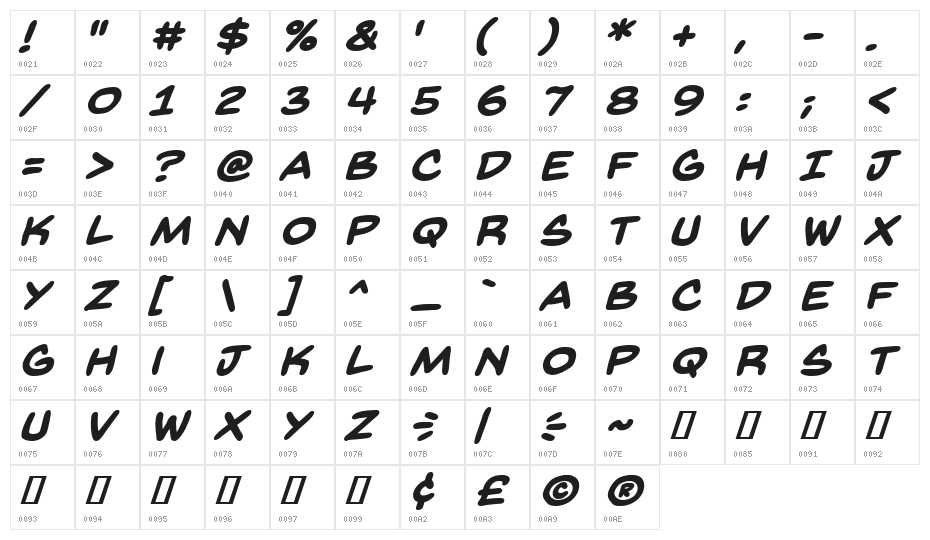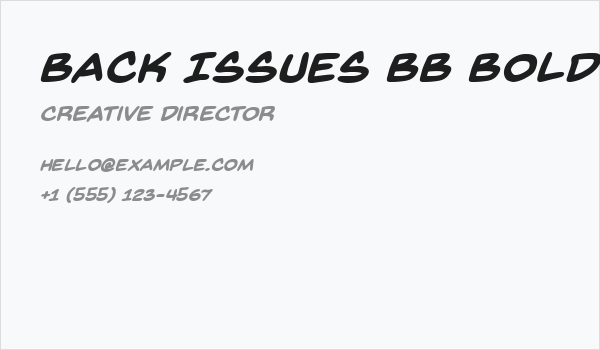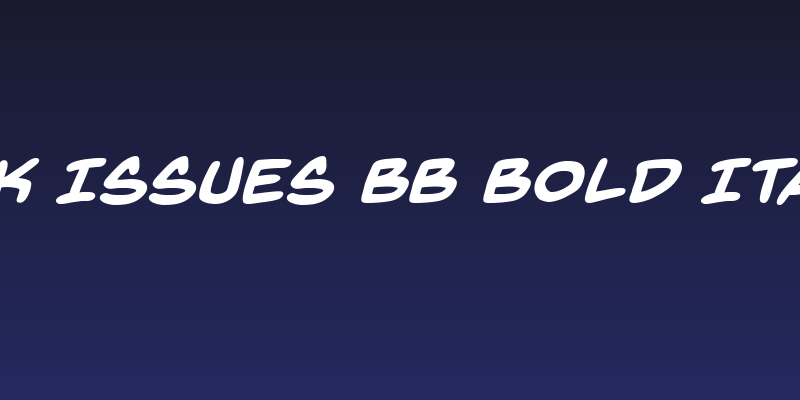
Back Issues BB Bold Italic Font
Back Issues BB Bold Italic Description
This font features a bold and italicized style, characterized by its dynamic and energetic appearance. The letters are slightly slanted, adding a sense of motion and fluidity. The strokes are thick and consistent, providing a strong visual impact. The overall design is playful yet assertive, making it suitable for projects that require a bold statement. The numbers and special characters maintain the same bold and italicized style, ensuring consistency across all elements.
| Proposed Projects | Ideal for posters, headlines, branding materials, and any design that needs a bold, eye-catching typeface. |